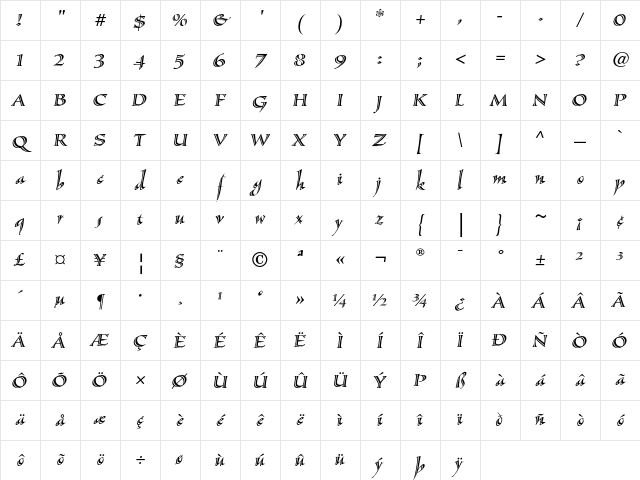
Sassafras Lx Italic Free Font
Sassafras Lx Italic
Style: Lx Italic
Sassafras Family
Sassafras Lx Italic
Design Context for Sassafras
Sassafras is a composed and adaptable typeface that performs quietly and consistently across a wide range of design contexts. The slanted form adds forward momentum and visual energy.
Pro Tip: Use Sassafras for emphasis, pull quotes, and subheadings where its slanted energy can add rhythm to the layout.